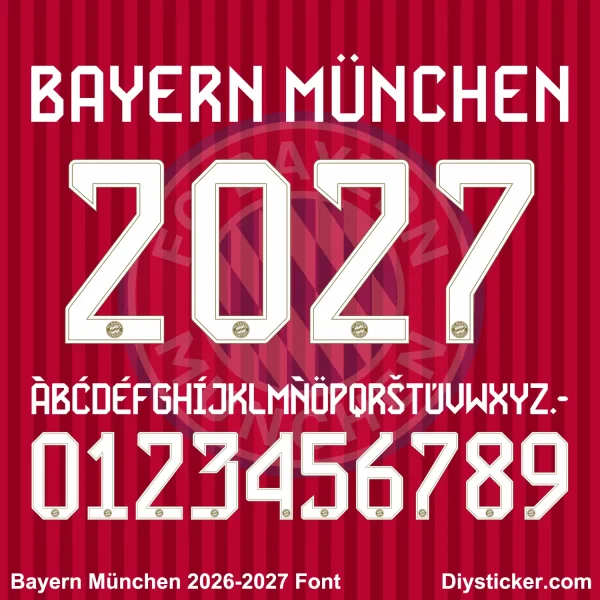
Bayern Munich 2026-2027 Font
Get the exclusive Bayern Munich 2026-2027 Font for your design projects! This digital download features the latest style used by FC Bayern, complete with full lettering and numbering. Perfect for jersey customization, sports graphics, and fan art. Includes TTF, OTF, AI, CDR, and PDF formats.
Elevate your sports design game with the Bayern Munich 2026-2027 Font. This comprehensive font pack is meticulously crafted to match the aesthetic of the Bavarian giants for the upcoming 2026/27 season.
Full Character Set: Includes all uppercase letters (A-Z), numbers (0-9), and special characters/accents as shown in the preview.